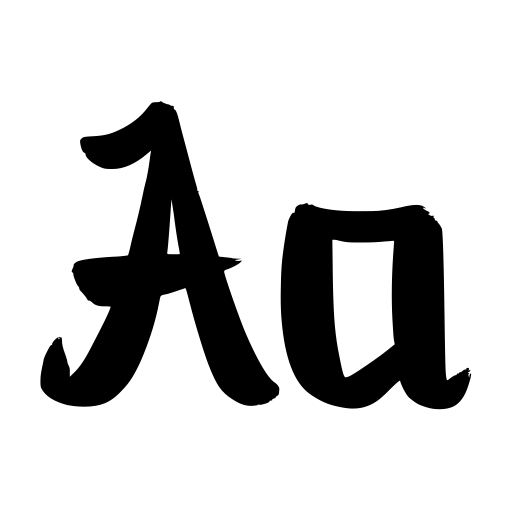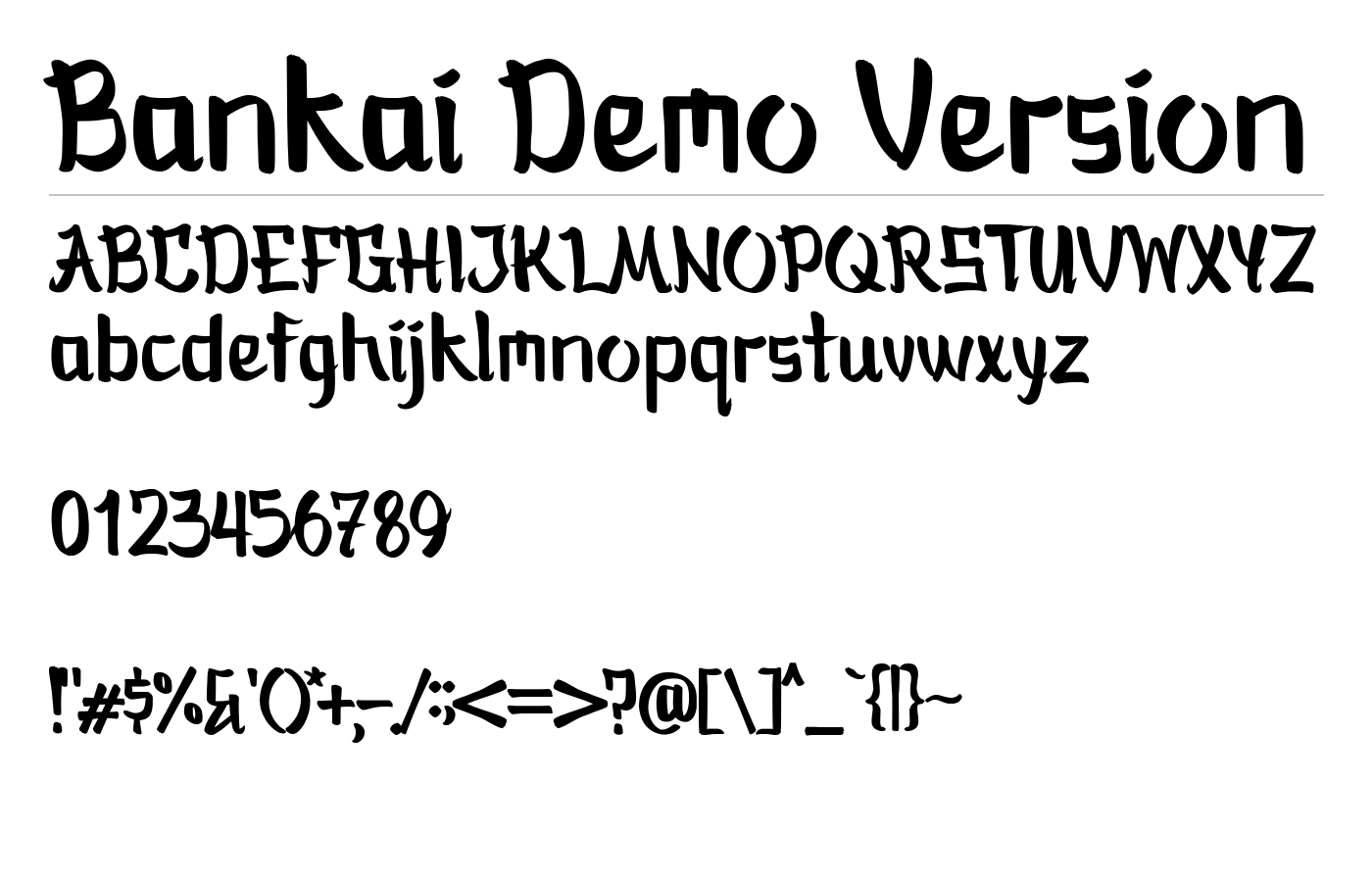
Bankai Demo Version is a playful and hand-drawn sans serif font with irregular, slightly condensed letterforms that give it a friendly, casual feel. The typeface features a moderate x-height and varying stroke widths that evoke the look of brush or marker writing, making it ideal for creative, informal designs such as posters, branding for youth-focused products, and expressive headlines. Its unique and quirky style communicates energy and personality, perfect for projects needing a human touch and artistic flair.
Bankai Demo Version Font
About Bankai Demo Version Font